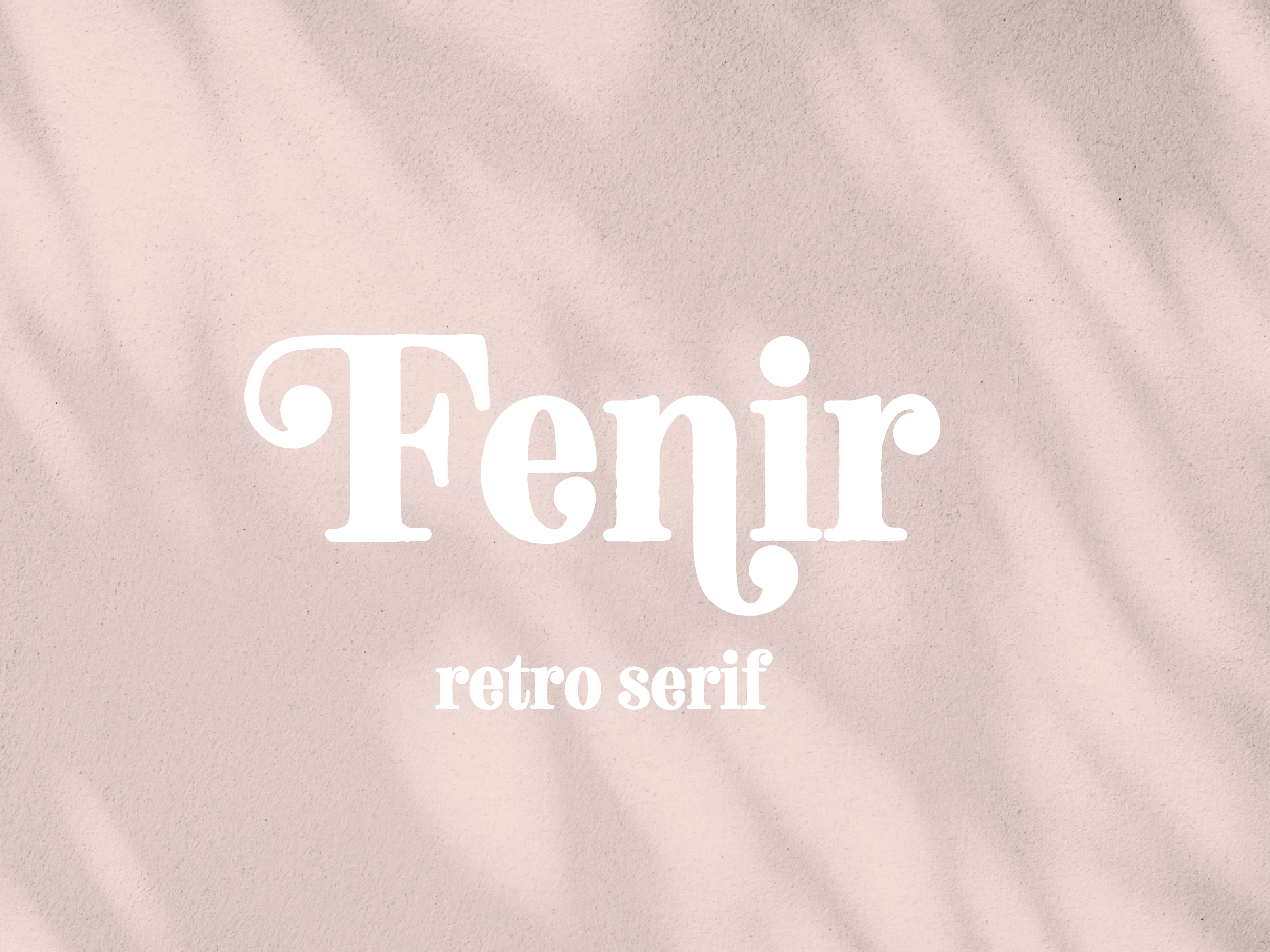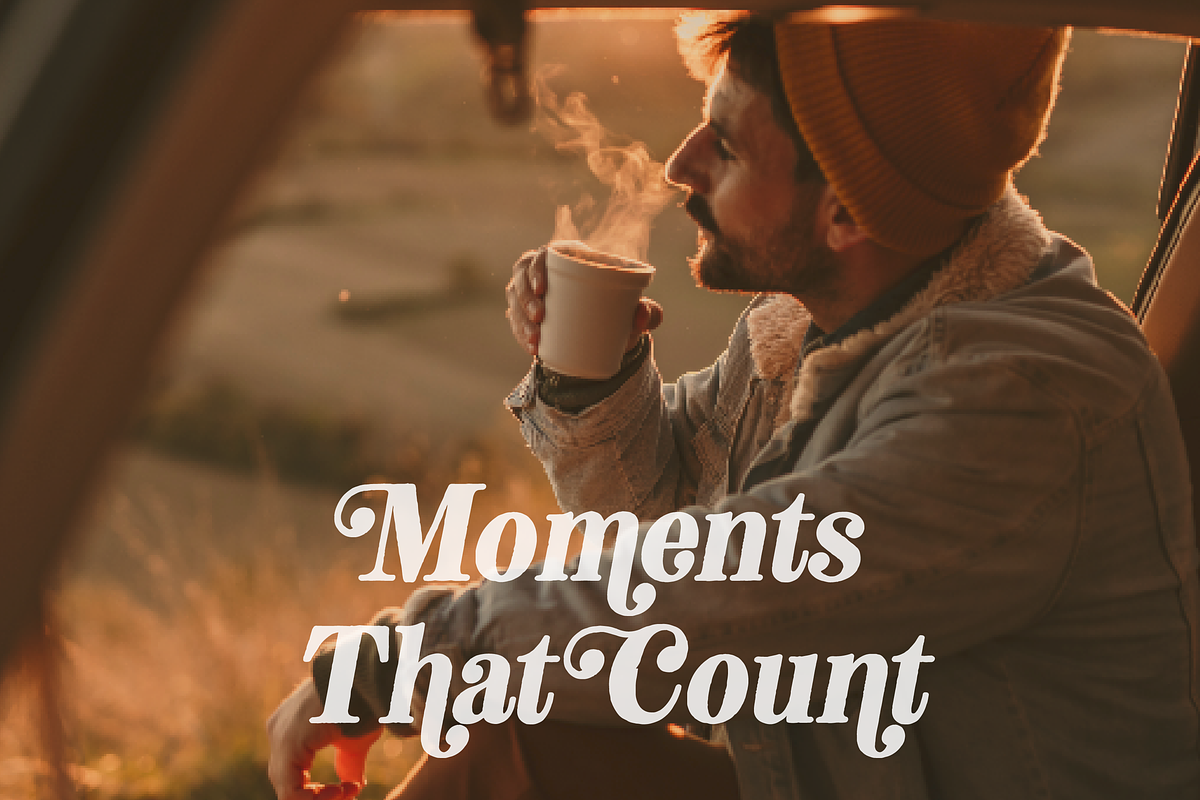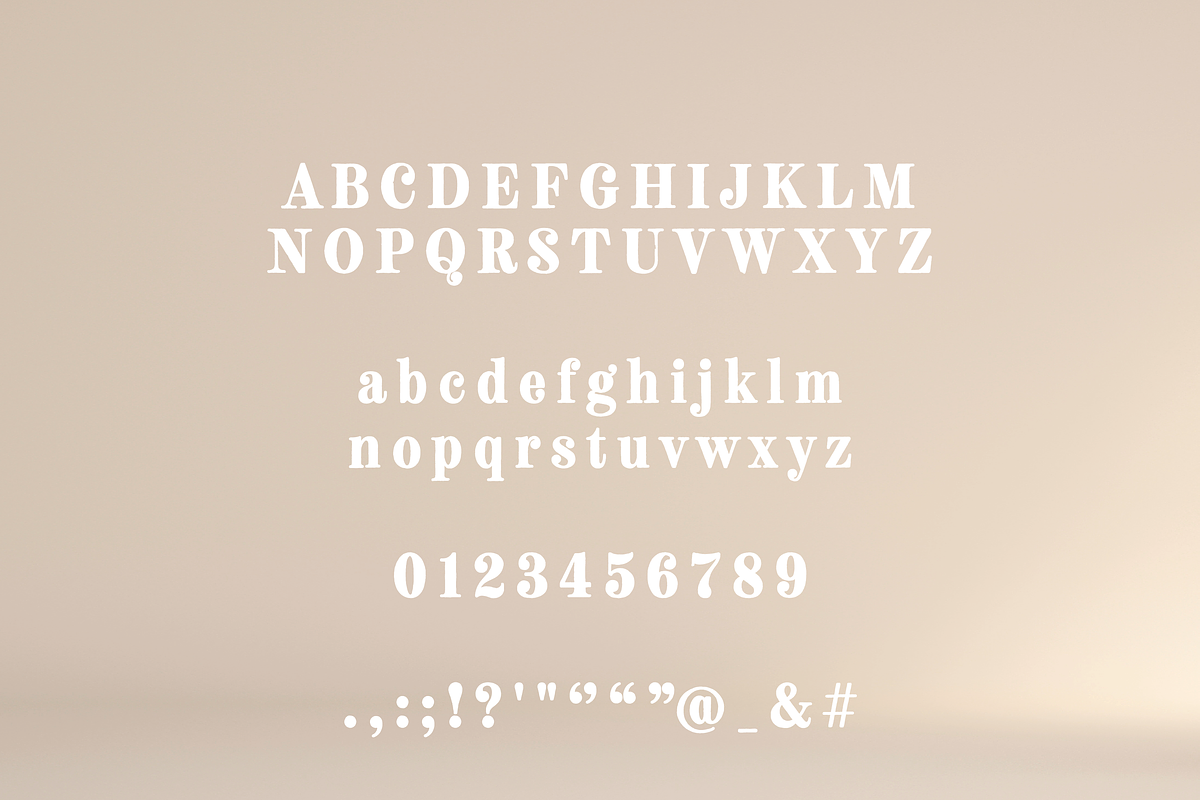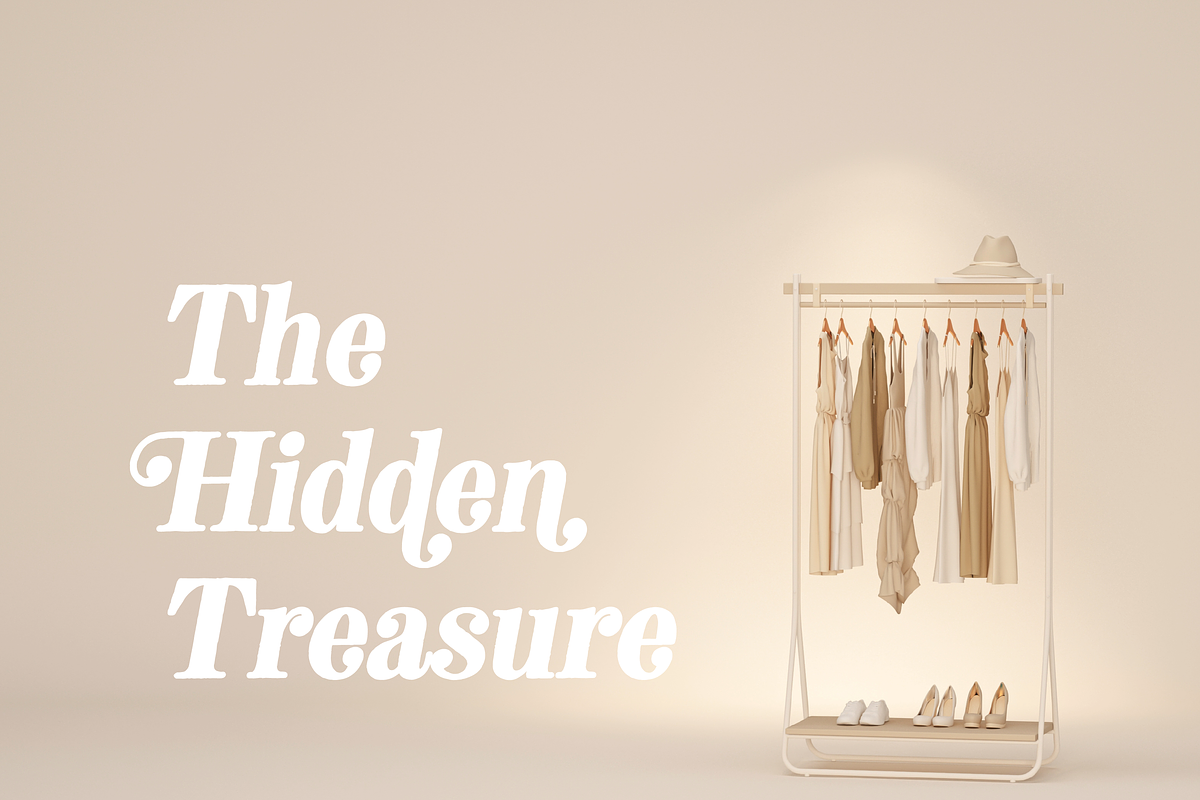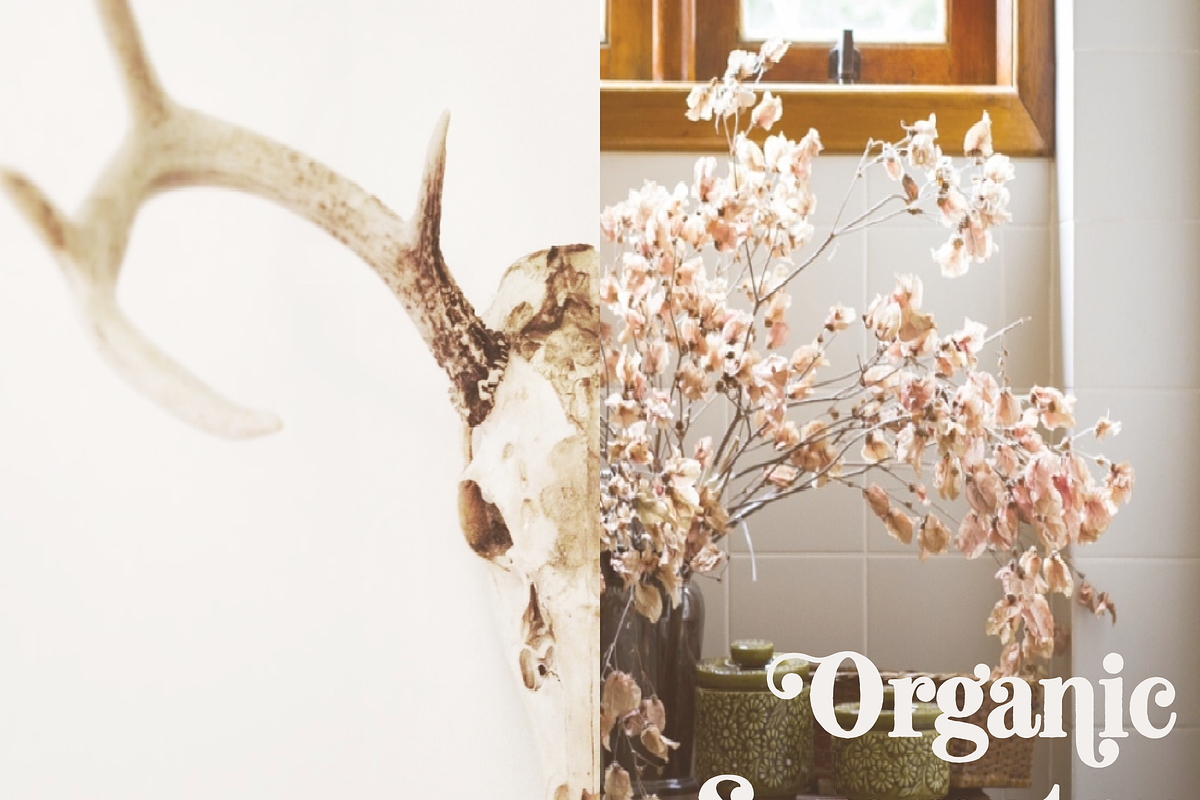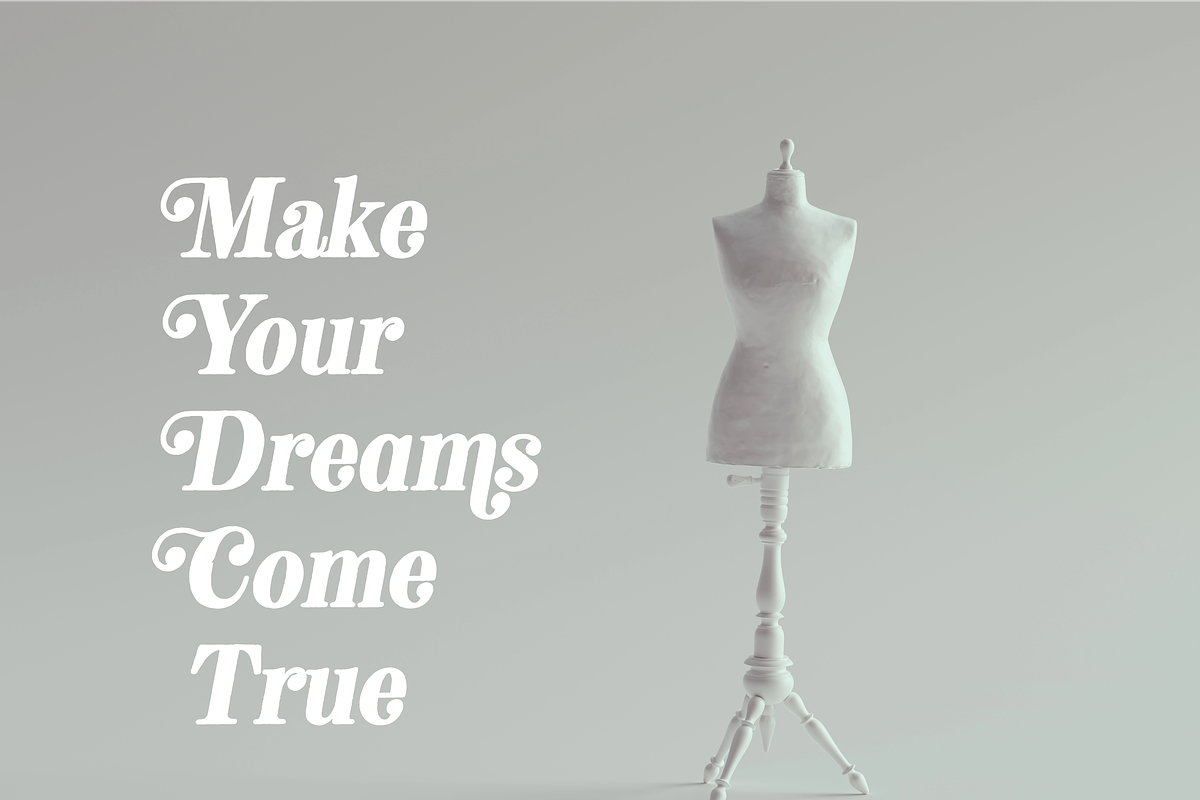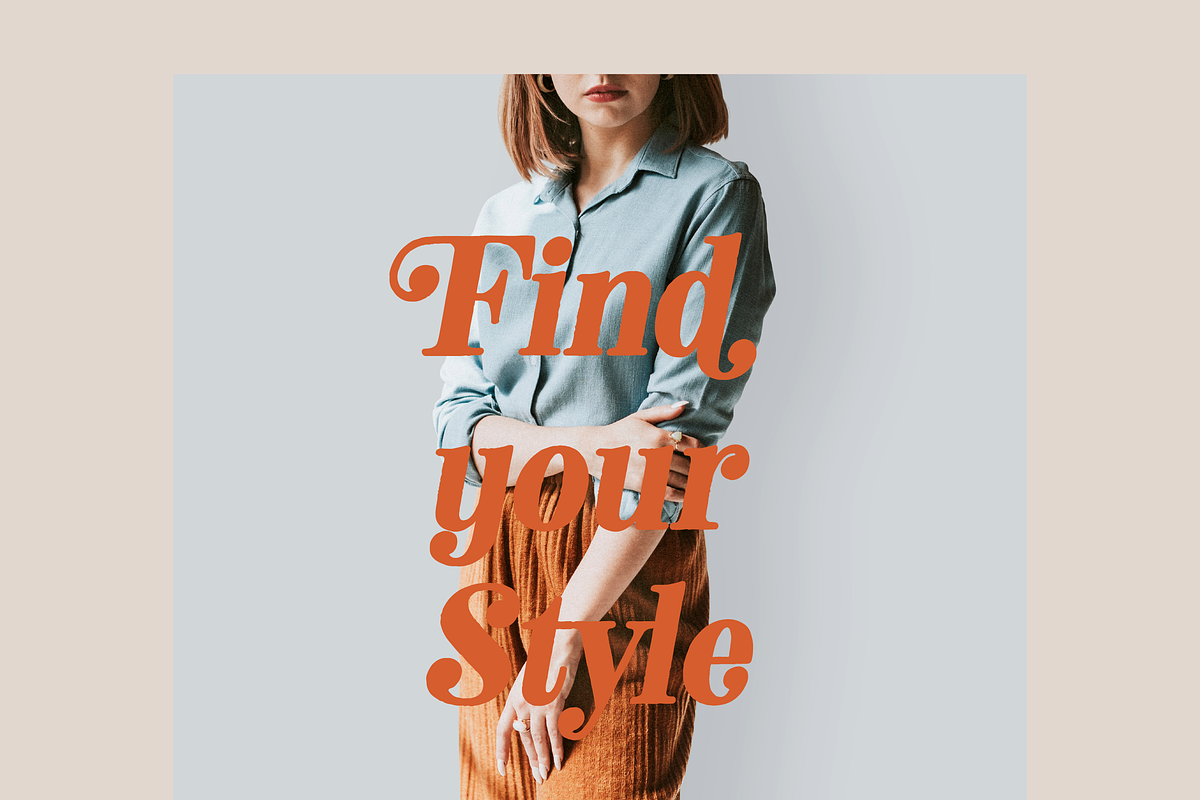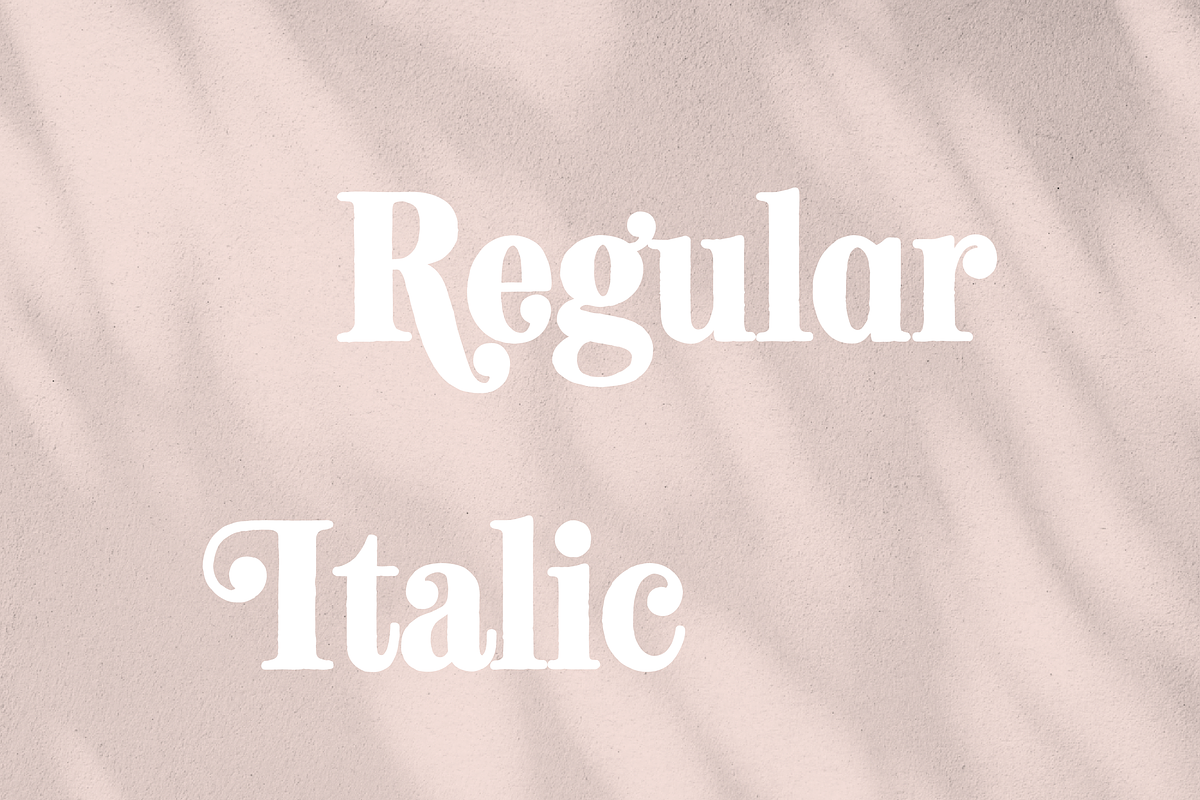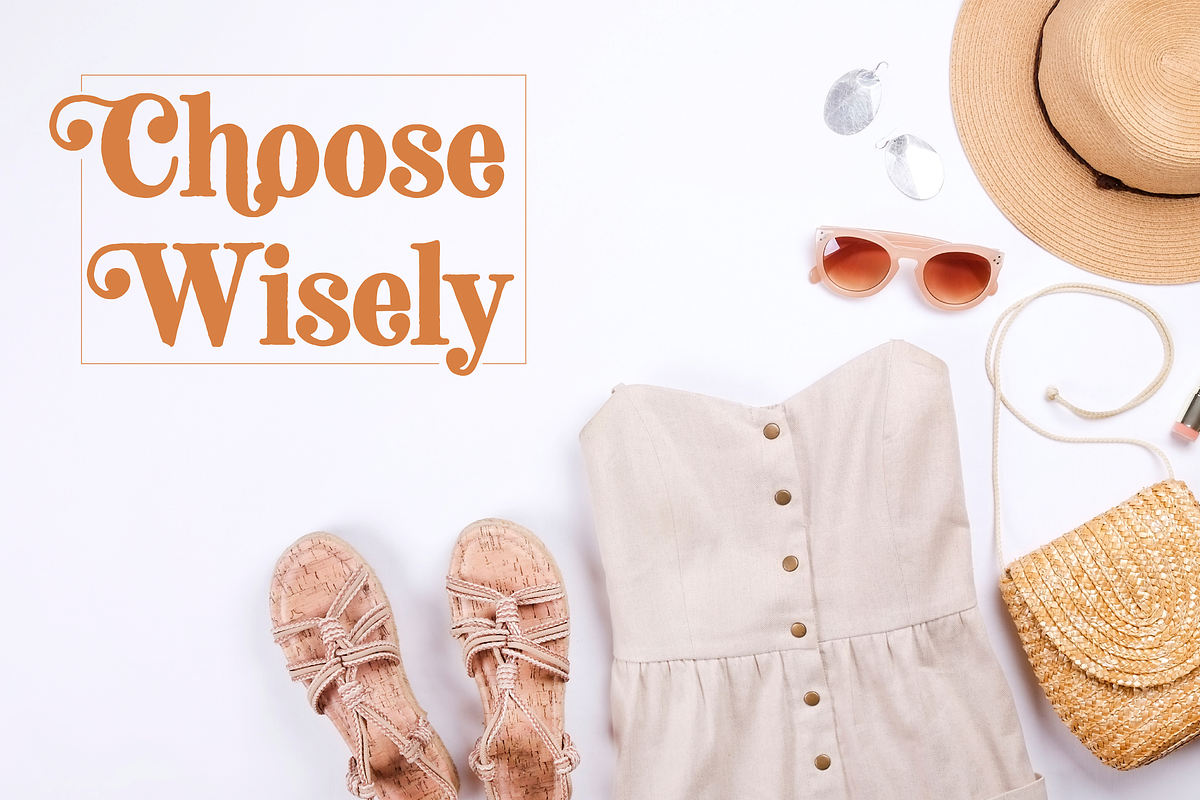
Fenir Elegant Serif Font
Fenir Serif – Quirky Hand-Drawn Serif Font
Fenir Serif is a distinctive hand-drawn serif font that strikes a perfect balance between stately sophistication and playful charm. Available in regular and italic, it features textured high contrast and theatrical ball terminals, giving it a unique character. Its slightly condensed structure makes it an excellent choice for magazine headlines, book titles, food packaging, multimedia branding, and more.
With an array of alternates, ligatures, and swashes, Fenir Serif offers plenty of opportunities to add a touch of flair and creativity to your designs. Perfect for projects that demand an artisanal and handcrafted feel, this font will elevate any design with its personality and style.